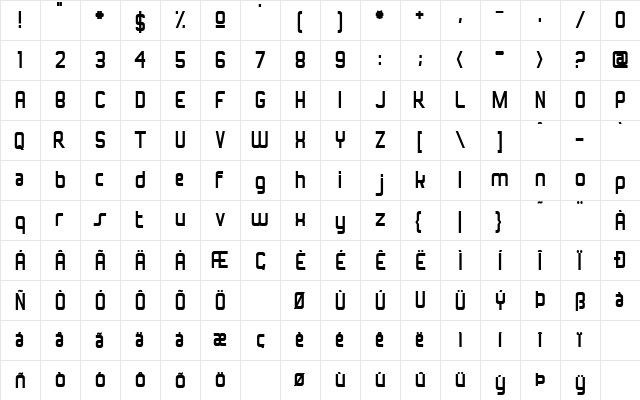
Superfly 2001 Heavy
Design Context for Superfly 2001 Typeface
Superfly 2001 offers clean, dependable letterforms without strong stylistic allegiance, making it a practical choice for designers who need flexibility.
Pro Tip: Pair Superfly 2001 with a font of contrasting weight or personality to build a more expressive typographic hierarchy.